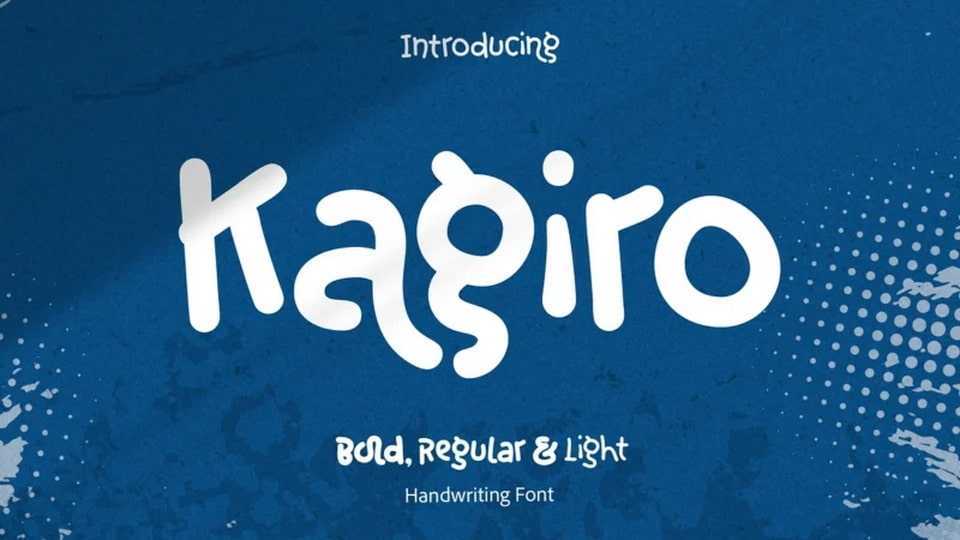
Download Kagiro font, a modern, hand-lettered typeface that blends uniqueness with elegance. Its fluid, artistic strokes give it a distinctive, handcrafted appeal, perfect for creative projects that seek individuality